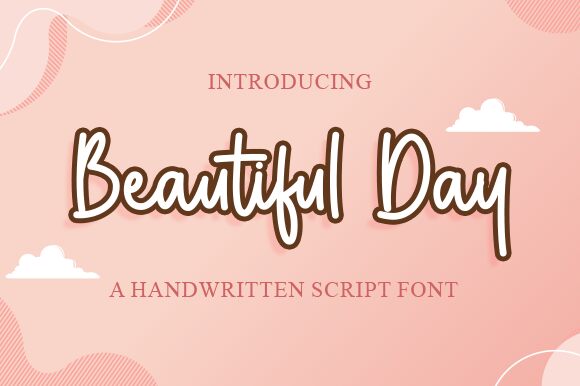
Beautiful Day
Beautiful Day is a gorgeous handwritten font, designed by Graphix Line Studio. Its semi-light weight and semi-condensed width make it perfect for a variety of projects. This versatile font works beautifully in greeting cards, wedding invitations, logos, and even social media graphics. Its handwritten style adds a personal touch to any design project and its legibility ensures that your message will be clear. Whether you're looking to add some charm to your branding or create a whimsical design, Beautiful Day is the perfect choice for any creative endeavor!